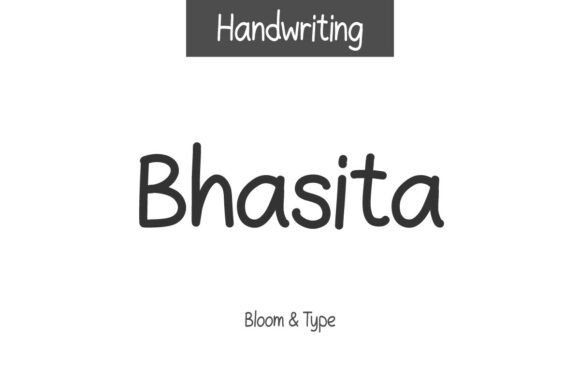
Bringing Joy to Your Designs: Introducing Bhasita Font
Have you ever found yourself scribbling down a quote or a to-do list, only to realize that the imperfections and quirks of your handwriting add a touch of personality to your words? That’s exactly what the Bhasita Font aims to capture – the natural charm of casual handwriting, while maintaining a professional and legible look.
This playful and modern handwritten font is designed to bring joy and personality to your creative projects, from motivational quotes and journals to branding and packaging. With its rounded shapes, soft curves, and clean structure, Bhasita Font is the perfect addition to any designer’s toolkit, adding a friendly and cheerful tone to their work.
Bhasita Font Key Features
- Language Support: Bhasita Font supports a wide range of languages, including English, Hindi, Marathi, and other Indian languages, making it a versatile choice for multilingual applications.
- Unique Characteristics: Bhasita Font features a unique blend of traditional and modern design elements, resulting in a distinctive and eye-catching appearance that sets it apart from other fonts.
- Scalability: The font is highly scalable, allowing it to be used effectively in a wide range of applications, from small text to large headlines, without compromising on readability or aesthetics.
Bhasita Font Review
I recently had the chance to work with the Bhasita Font, and overall, it’s a unique and intriguing typeface. ✨ One thing that works well is its organic, handwritten feel, which adds a touch of personality to any design project. The font’s irregularities and subtle flair make it perfect for creating a sense of whimsy and charm.
Another strength of Bhasita is its versatility. ✨ It can be used for a wide range of applications, from branding and marketing materials to digital products and publications. The font’s varied styles and weights also make it easy to customize and adapt to different design needs.
- ⚠️ Limited legibility at small font sizes: Bhasita’s organic feel can sometimes make it difficult to read, especially when used at smaller sizes.
- ⚠️ Limited consistency across styles: While Bhasita has a range of styles and weights, they can sometimes feel inconsistent in terms of design and quality.
Overall, I think Bhasita is a solid choice for designers looking to add some personality and flair to their work. While it may have some limitations, its unique feel and versatility make it a great option for the right projects.
Tips for Getting the Most Out of Bhasita Font
Here are some tips to help you get the most out of Bhasita Font:
- Use Bhasita Font for headings and titles to add a touch of elegance.
- Combine Bhasita Font with other fonts to create a unique and visually appealing design.
Bhasita Font is ideal for:
- Brand logos and identity design.
- High-end marketing materials and brochures.
- Choose a distressed texture for the background, such as a worn wooden plank or a vintage paper texture.
- Set the Bhasita Font as the primary text font and adjust the size and color to create a visually appealing contrast with the background.
- Experiment with layer blending modes and opacity to achieve a worn, aged look.
- Pair the Bhasita Font with a bold, sans-serif font for a striking contrast.
- Use earthy colors like green, brown, and beige to create a natural, earthy atmosphere.
Project 1: Vintage Signboard
Create a retro-inspired signboard using the Bhasita Font. This project combines the elegant, cursive script of the Bhasita Font with distressed textures and earthy colors to evoke a sense of nostalgia.
Project 2: Handwritten Journal
Create a digital version of a handwritten journal using the Bhasita Font. This project showcases the Bhasita Font’s elegant script and versatility in creating a sense of personal, handwritten writing.